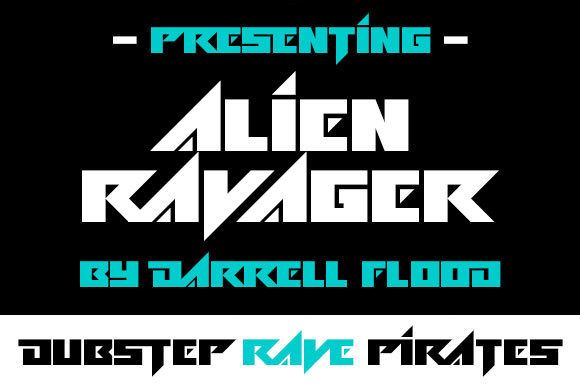
Alien Ravager: A Bold Font for High-Energy Design
If you're looking for a font that screams energy, movement, and futuristic flair, Alien Ravager might just be the perfect fit. This angular, dynamic typeface is more than just a visual statement—it's a tool that can elevate your creative projects in unexpected ways. Whether you're designing for a sci-fi theme, a tech startup, or a music event, Alien Ravager adds a punch that grabs attention and sets the tone.
When to Use Alien Ravager
Alien Ravager isn't just for space-themed projects. Its sharp edges and high-contrast design make it ideal for any situation where you want to convey speed, intensity, or innovation. Think of it as the digital equivalent of a neon sign in a dark alley—bold, eye-catching, and impossible to ignore.
For example, if you're creating a poster for a rave or a music festival, Alien Ravager can help you capture the chaotic energy of the event. Its aggressive look complements the high-energy vibe of electronic music, making it a go-to choice for designers who want to match the mood of the audience.
Real-World Applications for Different Users
Whether you're a small business owner, a content creator, or an educator, Alien Ravager has practical uses that can enhance your work. Let’s break down some scenarios:
How to Choose the Right Context for Alien Ravager
While Alien Ravager is versatile, it's not always the best choice for every project. Before deciding to use it, consider the following factors:
1. Readability: The font’s angular design can make it harder to read in long paragraphs. Use it for headlines, titles, or short phrases rather than body text.
2. Design Balance: Pair it with simpler fonts or clean layouts to avoid overwhelming the viewer. A minimalist background can help highlight its boldness without competing with it.
3. Target Audience: If your audience is more traditional or formal, Alien Ravager may not align with their expectations. However, for younger or tech-savvy audiences, it can be a powerful tool.
4. Platform and Medium: Make sure the font displays correctly across different devices and platforms. Test it on websites, social media, and printed materials to ensure consistency.
Alien Ravager in Digital Spaces
In the digital world, Alien Ravager shines on websites, mobile apps, and social media content. It’s particularly effective for:
Alien Ravager for Commercial and Creative Projects
Businesses and creatives alike can benefit from incorporating Alien Ravager into their branding or marketing strategies. For instance, a startup in the tech industry might use it in their logo or advertising to signal innovation and edge. Similarly, a musician or DJ could use it in their album artwork or tour posters to reflect the energy of their performance.
For independent artists or designers, Alien Ravager offers a way to differentiate their work in a competitive market. Its unique style can become a signature element that makes their designs instantly recognizable.
Final Thoughts on Using Alien Ravager
Alien Ravager is more than just a font—it's a design choice that carries energy, attitude, and a sense of the future. Whether you're working on a personal project, a commercial campaign, or an educational resource, this font can add a layer of intensity and creativity that other fonts simply can’t match.
Before using it, take time to think about how it fits into your overall design strategy. Consider the message you want to send, the audience you're targeting, and the context in which it will be seen. With the right approach, Alien Ravager can transform your work and help you make a lasting impression.